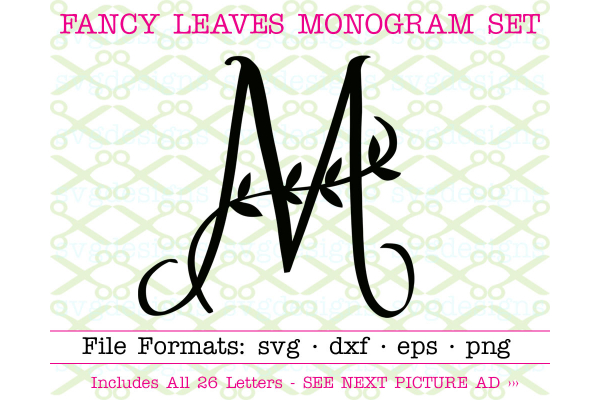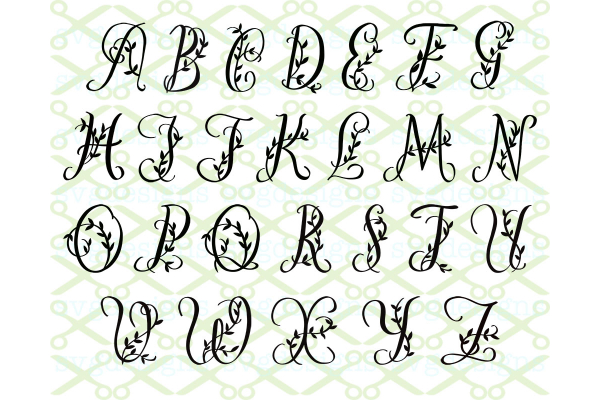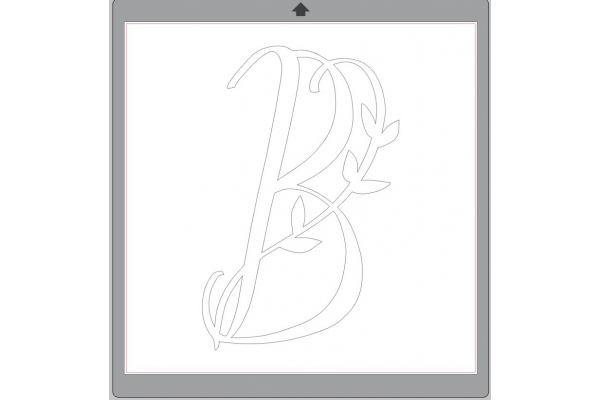
FANCY LEAVES MONOGRAM SVG FONT, In File Formats SVG, DXF, EPS & PNG. 26 Upper case letters as shown in ad picture #2. This set is unique, hand drawn by us and vectorized - inspired by a circa 1920 monogram. See picture 2 for all letters, see picture 3 for what cut lines look like (screenshot from Silhouette, DXF file used)